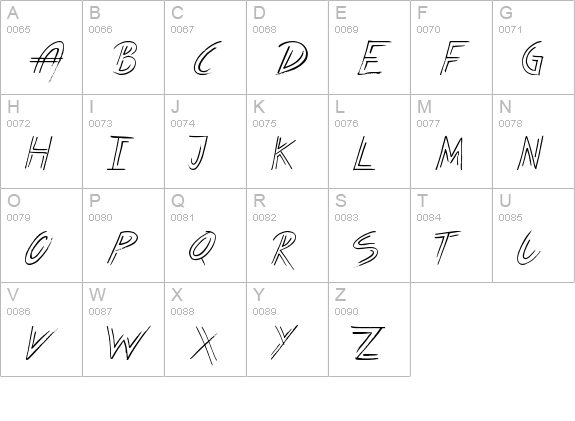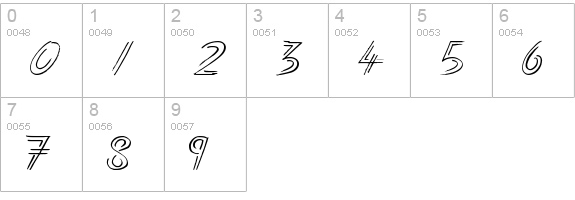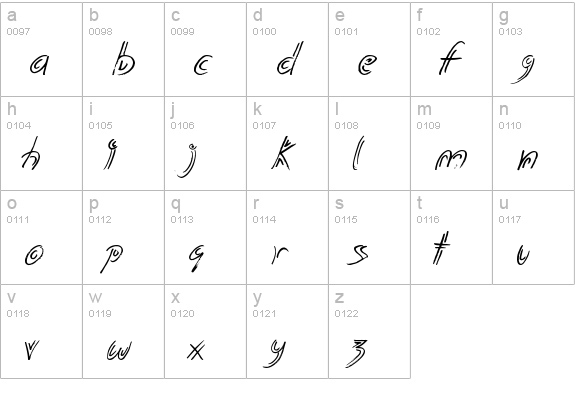
Invisible Touch Font Details
Introducing the mesmerizing Invisible Touch font, a true work of art that will captivate your audience and leave an indelible impression. This font is a testament to the power of simplicity, as it effortlessly combines elegance with modernity, making it the perfect choice for any design project. With its sleek and clean lines, Invisible Touch brings a touch of sophistication to your designs. Its unique and mysterious aura adds an air of intrigue, making it ideal for branding, logo design, headlines, and more. Whether you are creating a luxurious fashion magazine, a sleek corporate identity, or a captivating website, this font will effortlessly elevate your work to new heights. But what sets Invisible Touch apart from the rest is its versatility. It seamlessly adapts to any context, effortlessly conveying your message with style and grace. Its wide range of weights and styles ensures that you have the perfect variation for any application. From bold and impactful to delicate and refined, Invisible Touch has it all. And the best part? Invisible Touch is absolutely free! You can download this incredible font at FontsMarket.com, a trusted platform for high-quality fonts. By making it freely available, the creators of Invisible Touch have ensured that everyone can experience the magic of this font without any barriers. So why wait? Unleash your creativity with Invisible Touch and watch as your designs come to life with an invisible touch of elegance. Download it now from FontsMarket.com and let this font become an essential tool in your design arsenal.